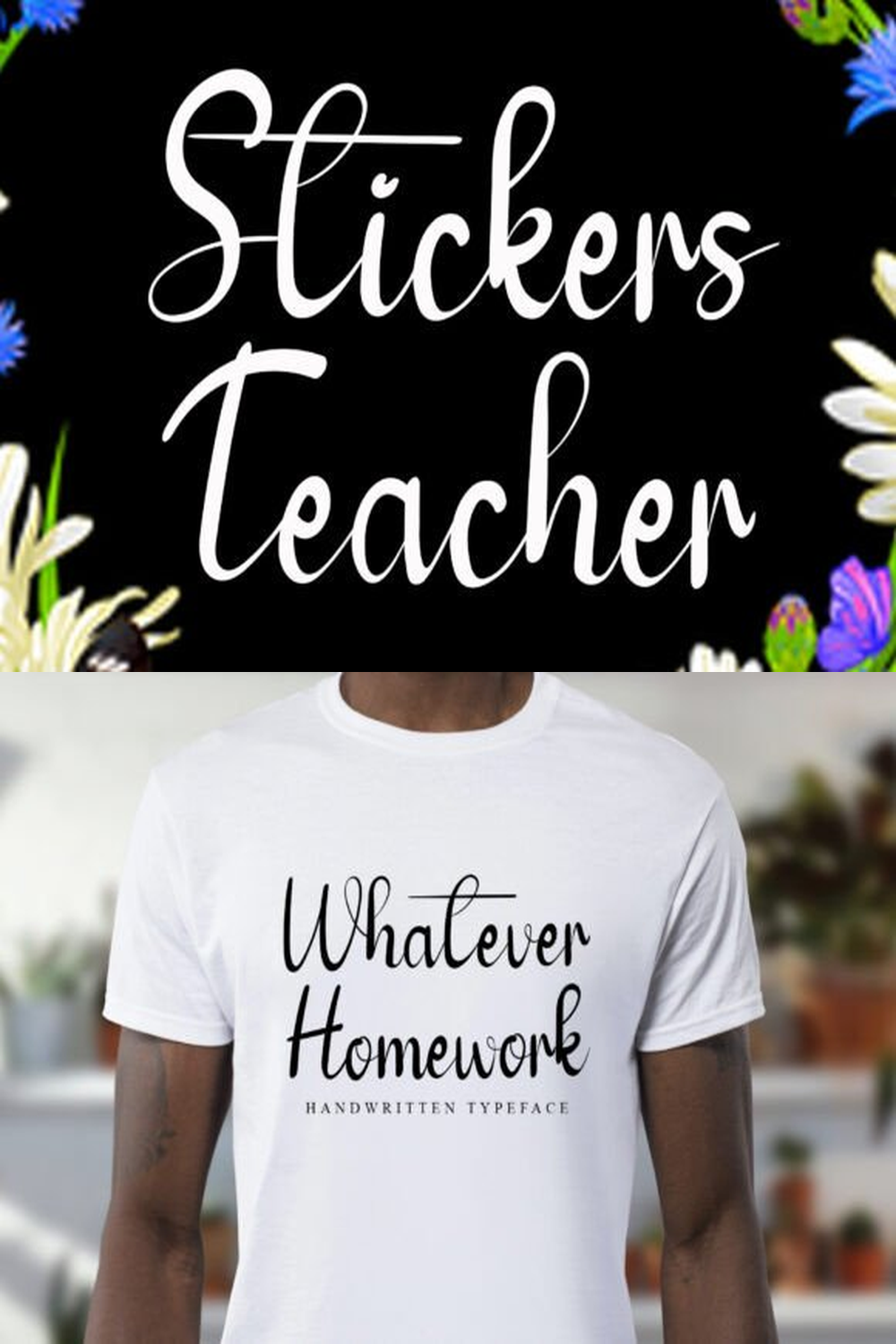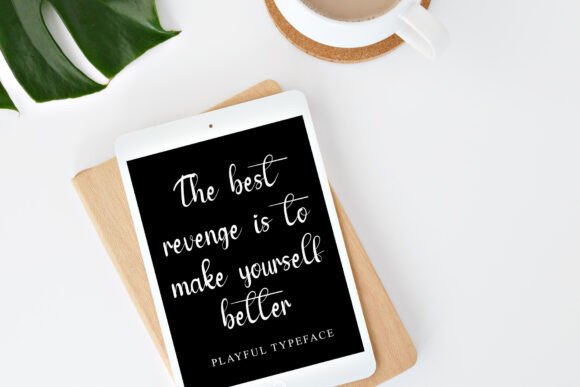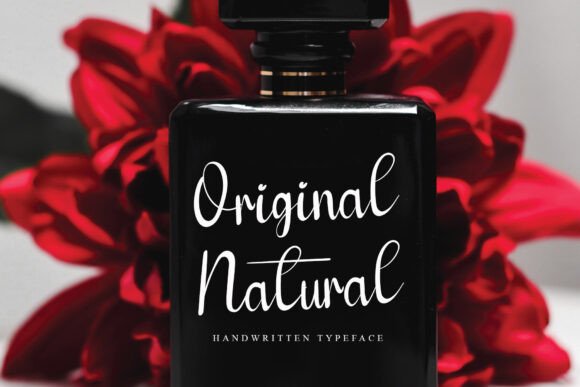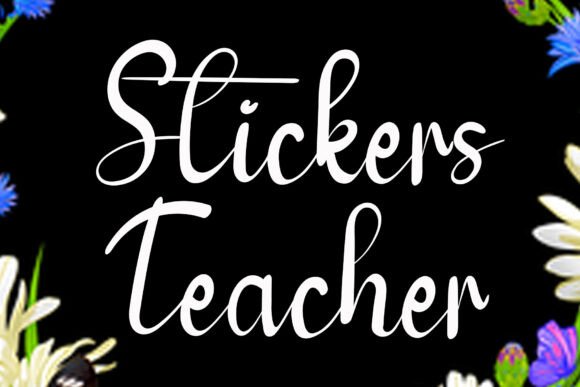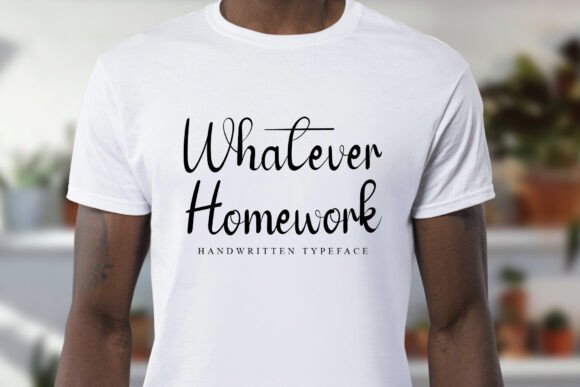
Stickers Teacher Font: A Cute Handwritten Font for Cricut & DIY Projects
About the Stickers Teacher Font
Get ready to be inspired by Stickers Teacher Font, a fresh and dynamic typeface for modern creators. Stickers Teacher is a unique and elegant font specially designed just for you. This font is made with a professional hand touch and is perfect for your projects. This font is very suitable for use in your work projects, all greeting cards from wedding invitation cards, birthdays, all types of parties. This font is also very suitable for use in your creative ideas for school assignments or other important events. Apply this font with your creative ideas to make it look better. This font is very carefully crafted and it is accessible with all glyphs without any additional application.